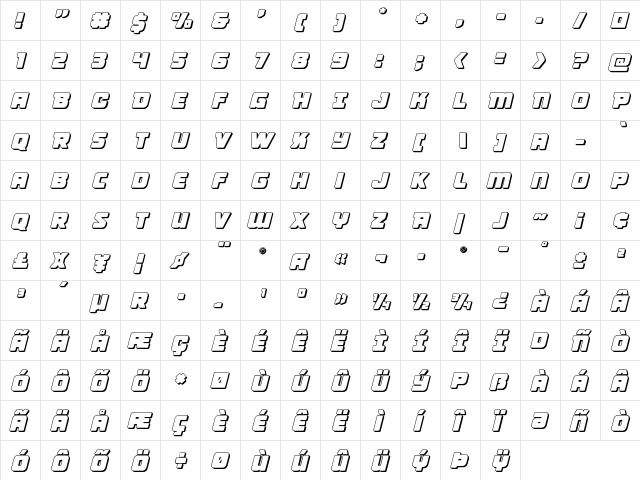
Victory Comics 3D Semi-Italic Font Preview
Design Context for Victory Comics 3D Semi-Italic Typeface
Victory Comics 3D Semi-Italic has an approachable, lighthearted character — its loose, expressive forms are well-suited to children's content, casual branding, and fun-first design. Its italic angle brings a sense of urgency and motion to the letterforms.
Font Pairing: Pairs well with a rounded or humanist sans for body copy, maintaining the friendly tone without relying on Victory Comics 3D Semi-Italic to carry extended reading.
Pro Tip: Avoid using Victory Comics 3D Semi-Italic for long passages of text — it works best for headlines, labels, and short calls to action.